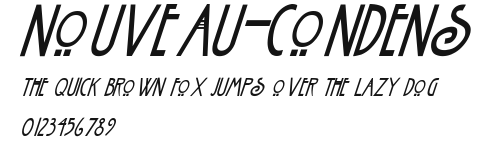
About Nouveau-Condens.ttf
Nouveau-Condens.ttf is a modern, elegant sans-serif font designed for ultimate readability and visual harmony. Perfect for branding, headlines, web design, and print materials.